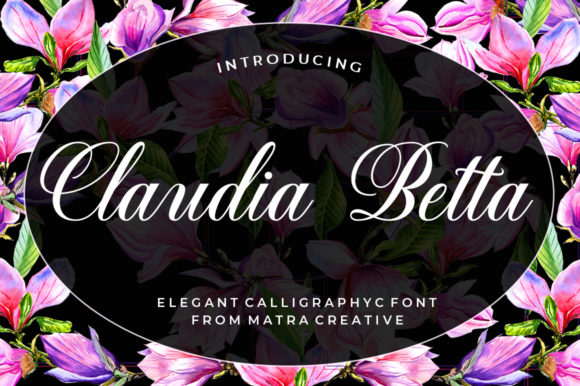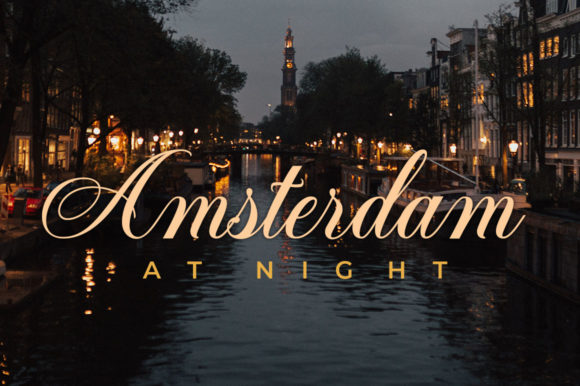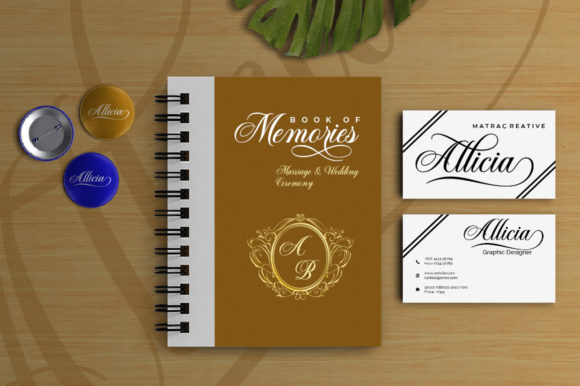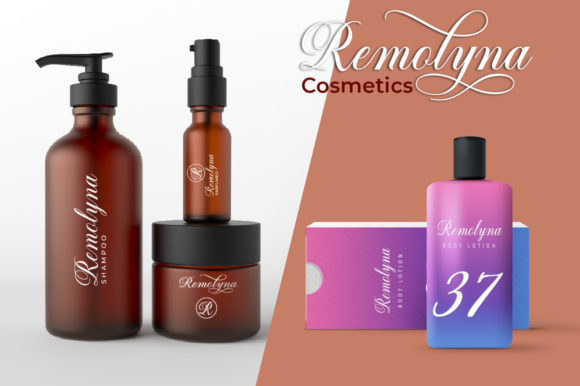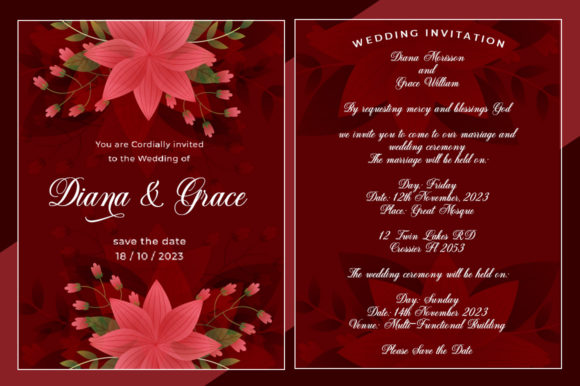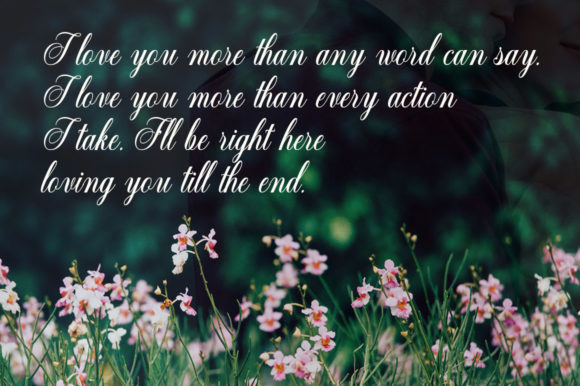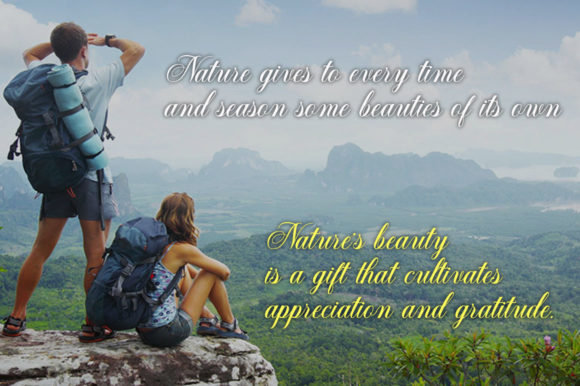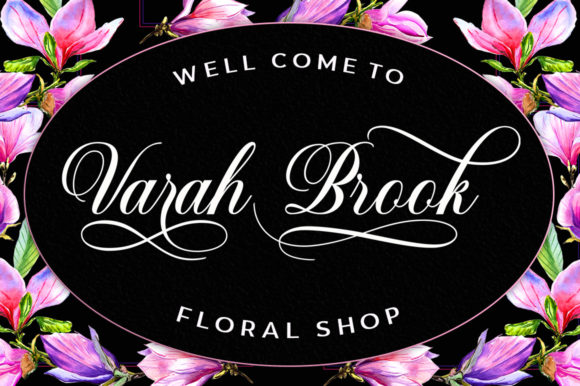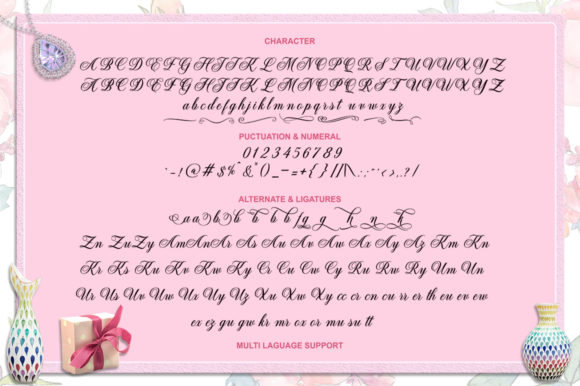
Claudia Betta Font
About Claudia Betta Font
The Claudia Betta typeface is a formal script font with multilingual support.
It’s elegant and works great for wedding invitations, magazines, Christmas Card designs, social media & blogs and much, much more.
It comes with a complete set of lowercase and uppercase characters and features a large range of ligatures, numerals and more.